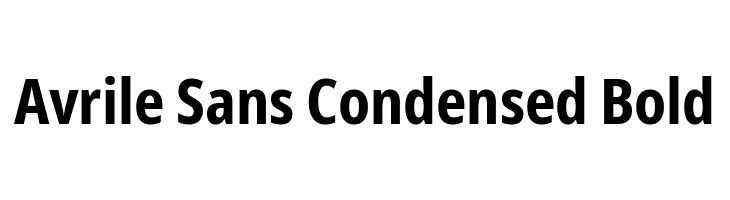
A bold, condensed sans-serif font with a modern and clean look.
A modern, condensed sans-serif font with an extra light weight and minimal contrast.
A sleek, modern sans-serif font with a condensed, extra light, and italic style.
A sleek, modern sans-serif font with a condensed and italicized style.
A modern, condensed sans-serif font with a light weight and low contrast.
A sleek, modern sans-serif font with a light, italic, and condensed style.
A modern, condensed sans-serif font with medium weight and low contrast.
A modern, sans-serif, condensed italic font with medium weight.
A modern, bold, and condensed sans-serif font with clean lines.
A modern, thin, and condensed sans-serif font with clean lines.